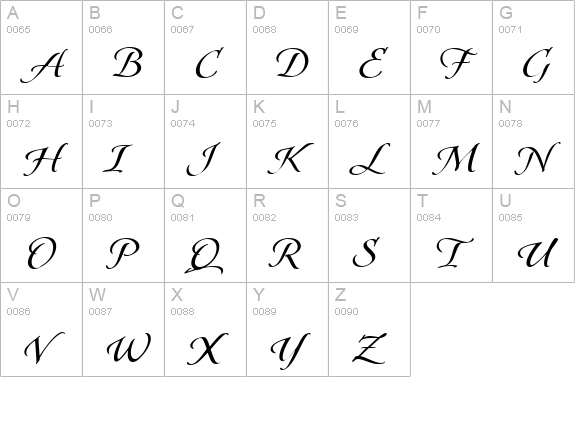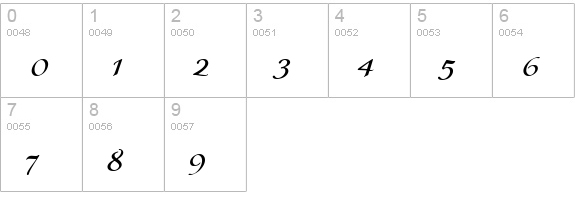
FlorensLPAlternates Font Details
FlorensLPAlternates is a stunning and versatile font that combines elegance with a touch of playfulness. This font features a unique set of alternate characters that add a dynamic and artistic flair to any design project. With its clean lines and modern style, FlorensLPAlternates is perfect for branding, logos, invitations, and more. The best part? FlorensLPAlternates is completely free to download at FontsMarket.com. This means you can unleash your creativity and use this beautiful font in your designs without any cost. Whether you are a designer, artist, or hobbyist, FlorensLPAlternates is a must-have addition to your font collection. Don't miss out on the opportunity to elevate your designs with this exquisite font. Download FlorensLPAlternates today and start creating stunning visuals that will captivate your audience.